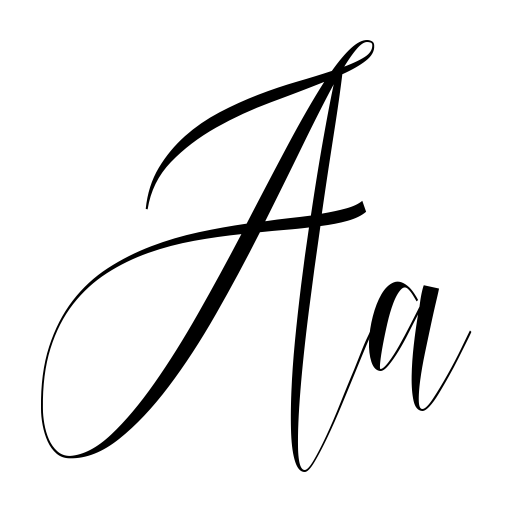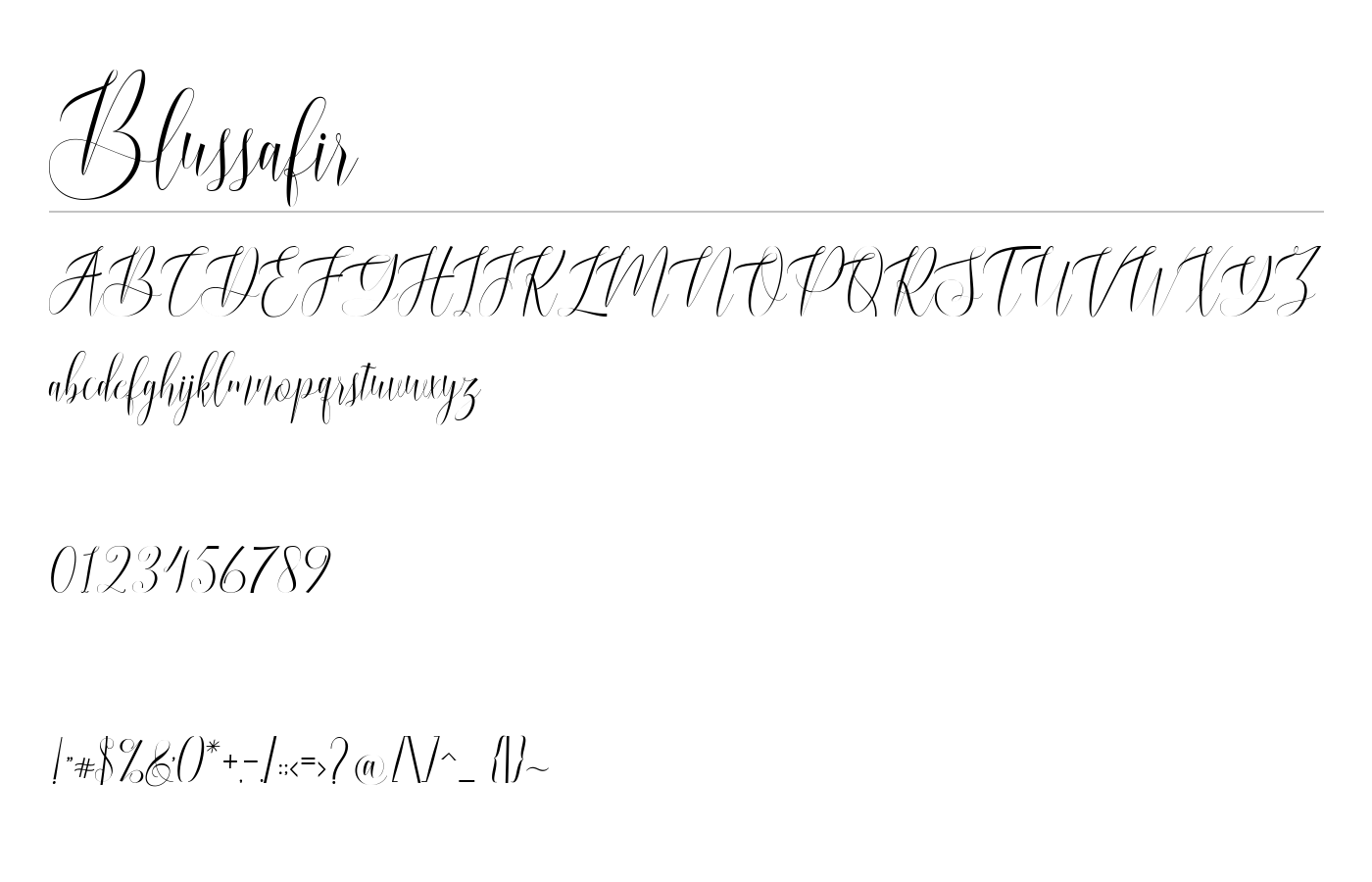
Blussafir is an elegant script font characterized by its slender, flowing strokes and high contrast between thick and thin lines. Its delicate, calligraphic style with graceful swashes and flourishes makes it perfect for sophisticated branding, wedding invitations, and luxury packaging. This font adds a refined, romantic touch to designs that require a sense of beauty and delicacy.
Blussafir Font
About Blussafir Font
| Font family | Blussafir Font |
| Designer | Great studio |